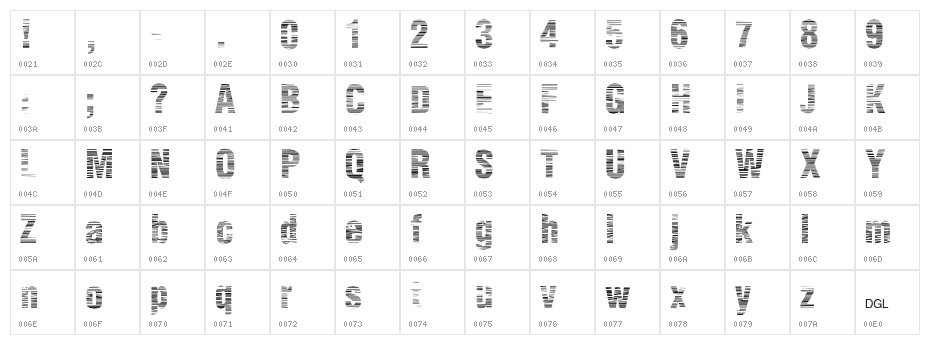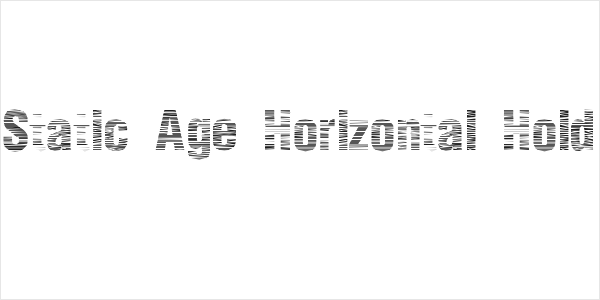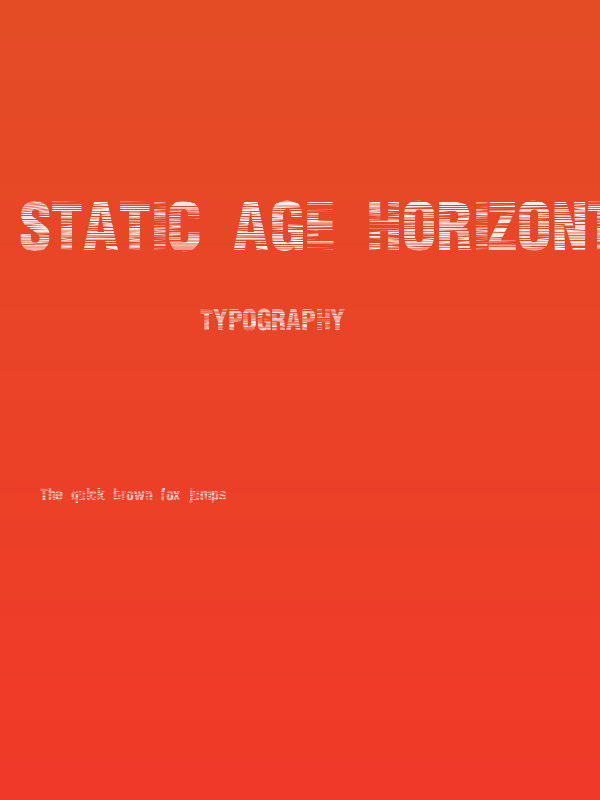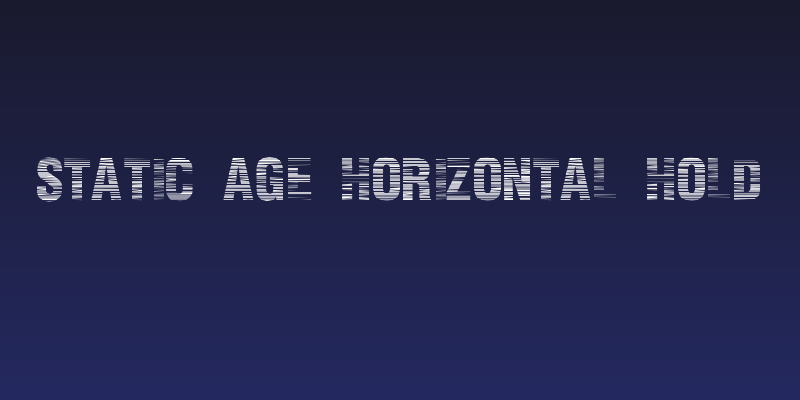
Static Age Horizontal Hold Font
Static Age Horizontal Hold Description
This font features a unique, textured design with horizontal lines running through each character, creating a dynamic and visually striking appearance. The uppercase and lowercase letters, as well as numbers, maintain a bold, blocky structure that is enhanced by the horizontal striping effect. This design gives the font a sense of movement and energy, making it stand out in any application. The characters are evenly spaced, ensuring readability while maintaining the distinctive style. The font's modern and edgy aesthetic makes it suitable for projects that require a bold statement.
| Proposed Projects | Ideal for music album covers, posters, branding, and any project needing a bold, modern aesthetic. |